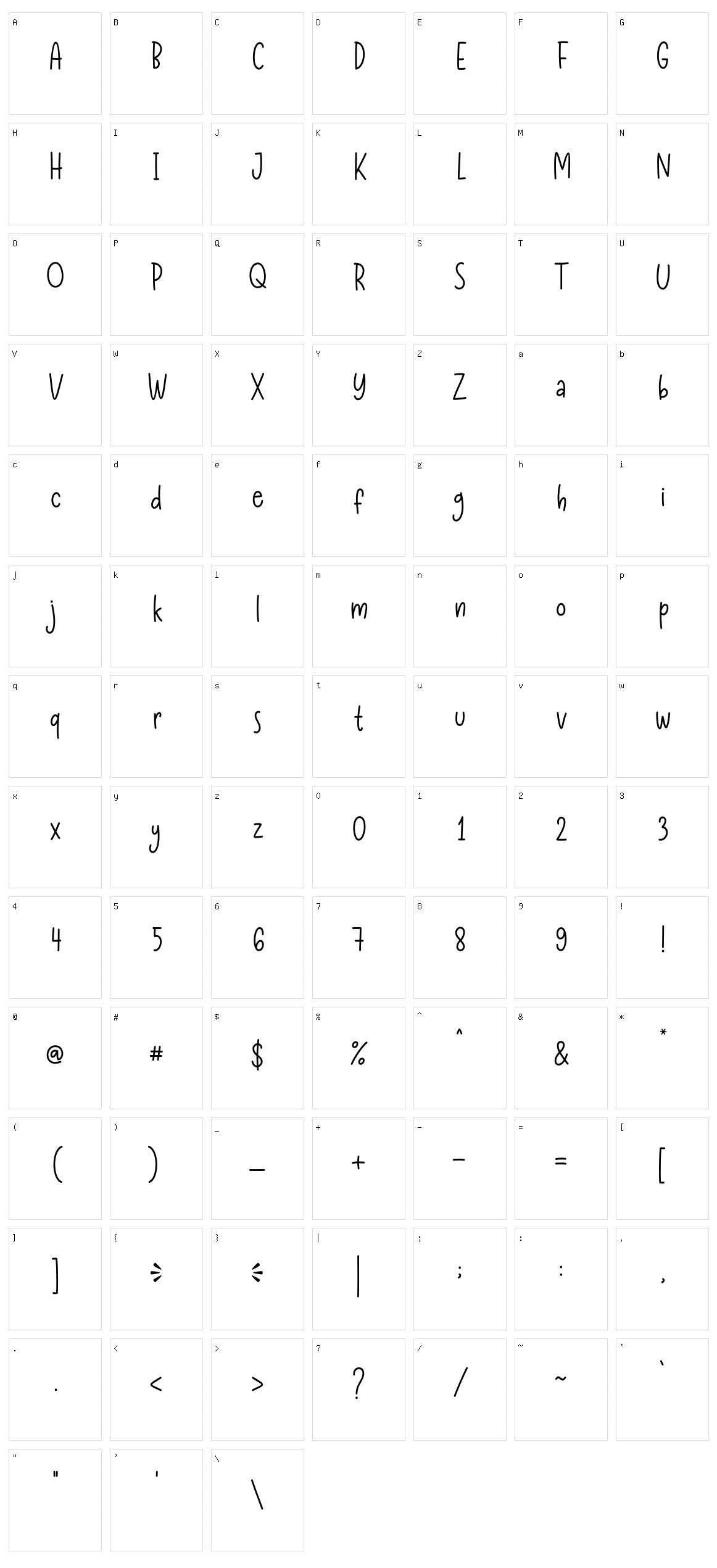
The free font Egg Party is carefully designed by Ef Studio, showcasing a thoughtful balance of creativity and usability and falls under the Script font style. When you download the ZIP file, it contains only 579.69 KB of font files, making it lightweight and quick to download. Please review the license details below to understand permitted usage and distribution rights. If license information is not available, we recommend using this font for personal projects only or contacting the author directly for commercial usage permissions.